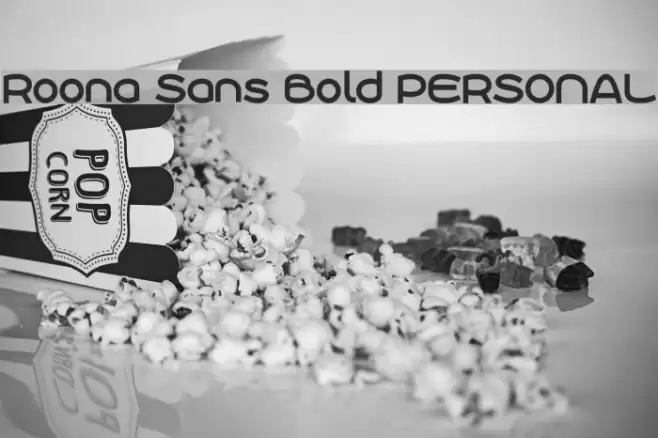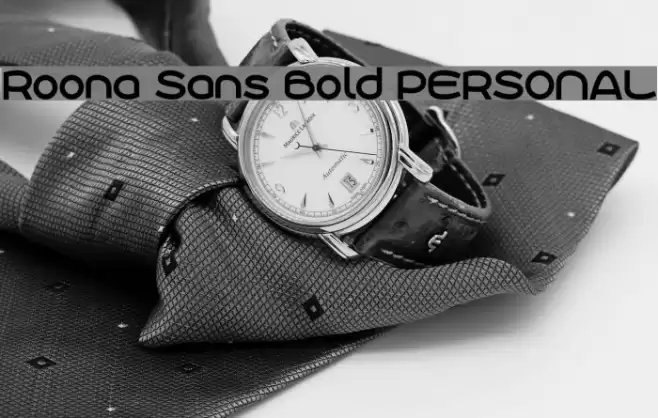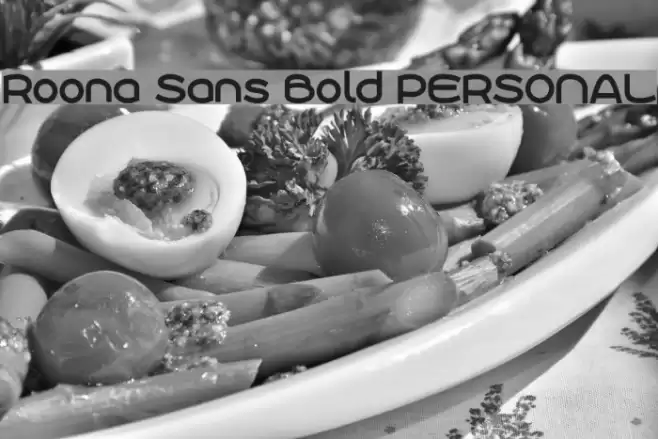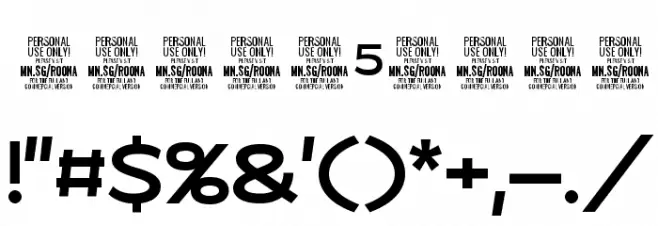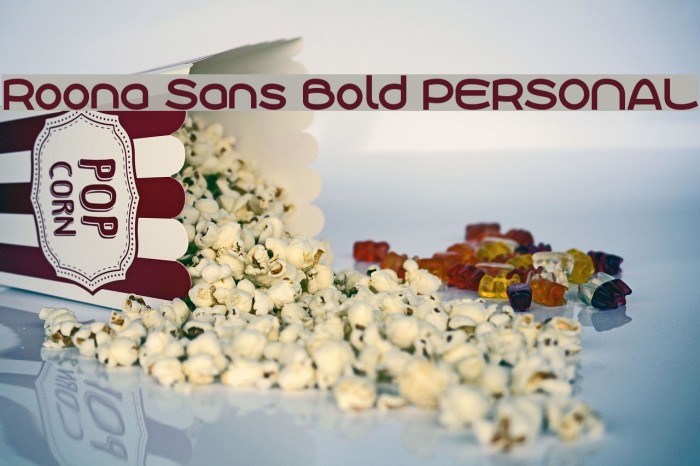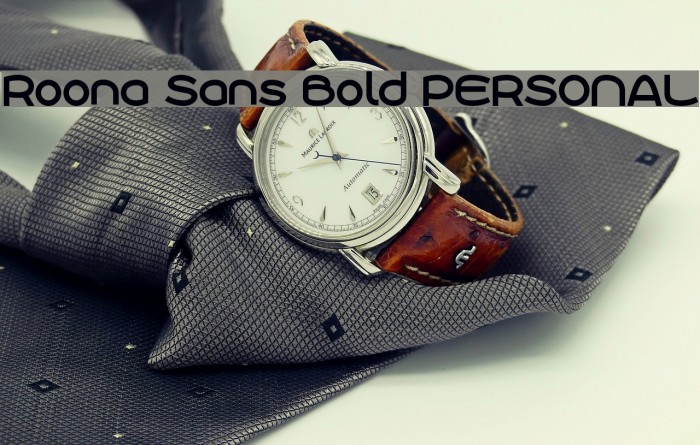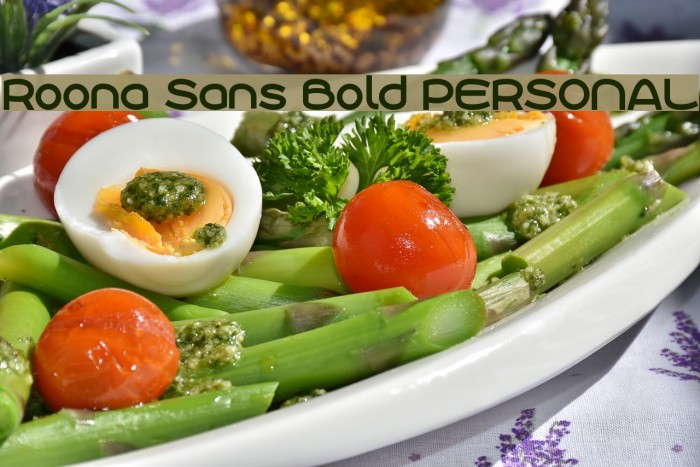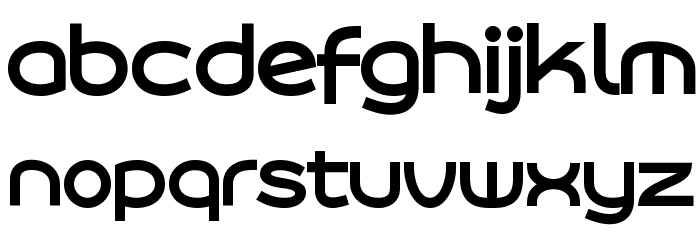
Roona Sans Bold PERSONAL Font
Roona Sans Bold PERSONAL Description
This font features a modern and sleek sans-serif design with bold, rounded characters. The uppercase and lowercase letters maintain a consistent geometric style, providing a clean and contemporary look. The numerals and special characters follow the same design principles, ensuring uniformity across all glyphs. The overall appearance is bold yet approachable, making it suitable for a variety of design applications. The font's structure is well-balanced, with a focus on readability and aesthetic appeal.
A bold, modern sans-serif font with rounded geometric characters from Uncategorized fonts.
- Proposed Projects: Ideal for branding, advertising, headlines, and digital media projects that require a modern and bold aesthetic.
- Use Case: Headlines, Logos, Branding